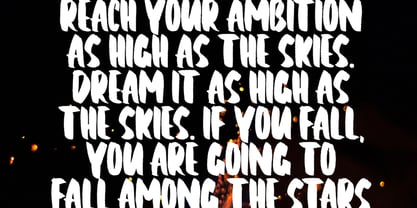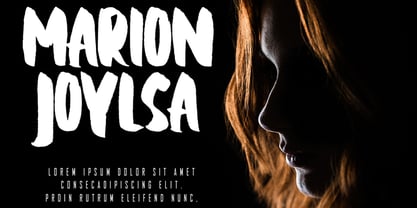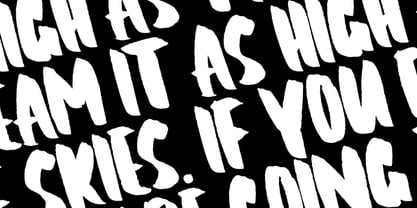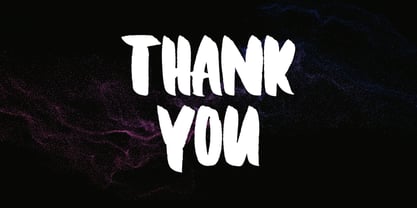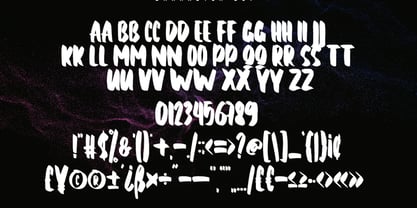
Balade
von Skiiller Studio
Die Schriftfamilie Balade wurde von Irfan Mahmudin entworfen und von Skiiller Studio veröffentlicht. Balade enthält 1 Stile.
Balade is a bold handwritten brush font that delivers raw energy and expressive character in every stroke. Its rough textures and dynamic shapes create a powerful handmade feel, perfect for striking titles, posters, album covers, branding, and any design that needs an intense artistic touch. Balade brings a dramatic brush aesthetic that enhances visual impact while keeping a natural, authentic handwritten style
Designer: Irfan Mahmudin
Herausgeber: Skiiller Studio
Foundry: Skiiller Studio
Eigentümer des Designs: Skiiller Studio